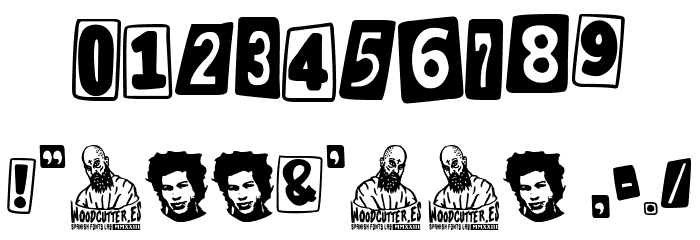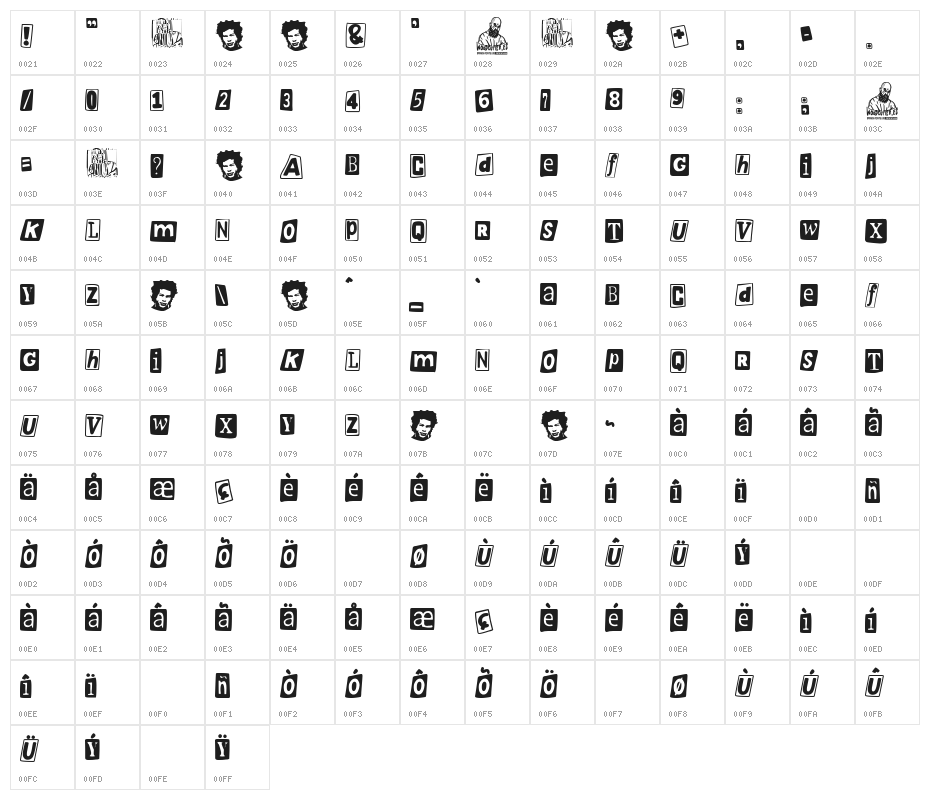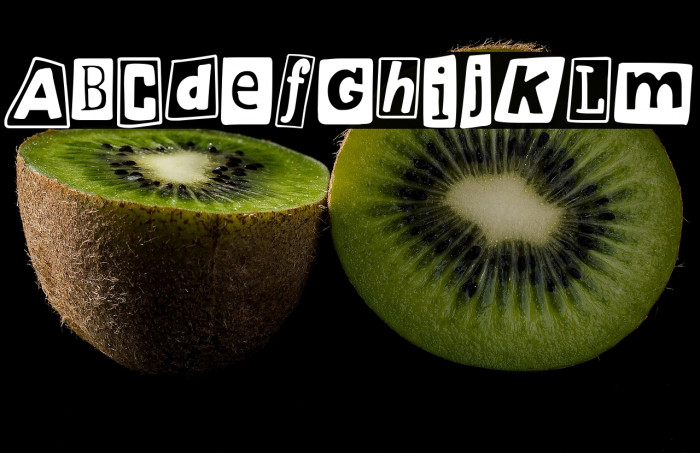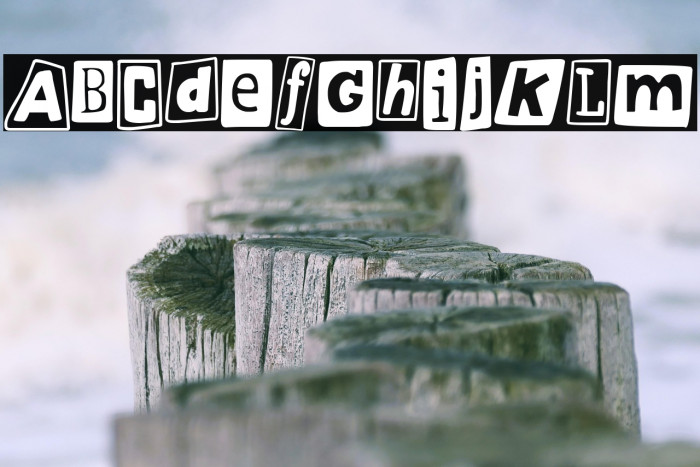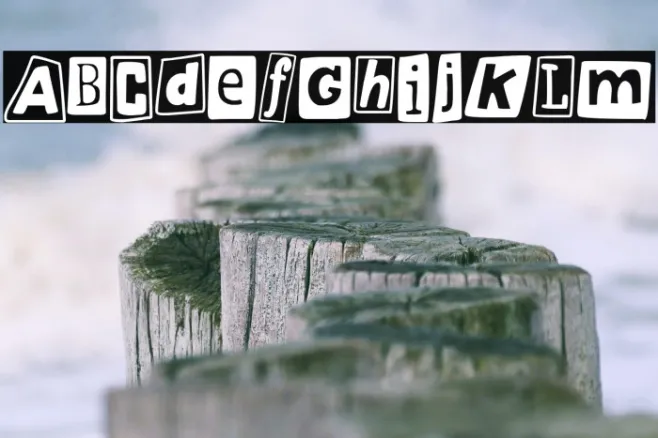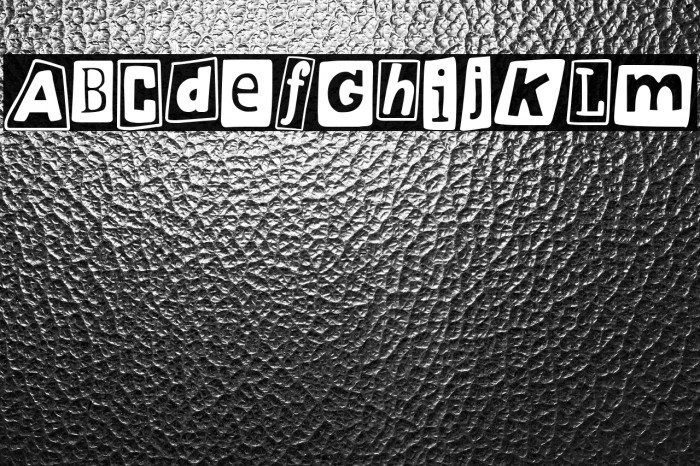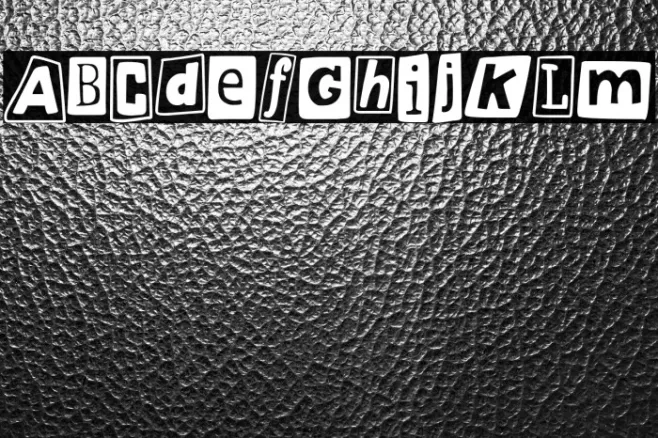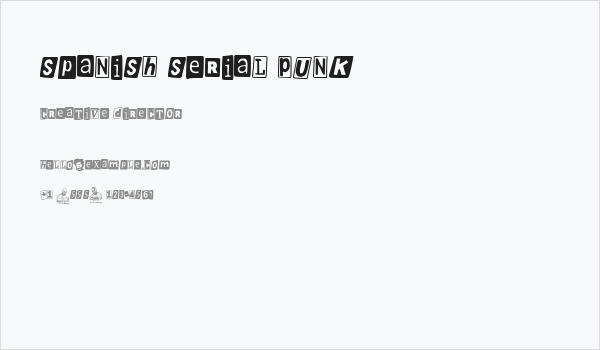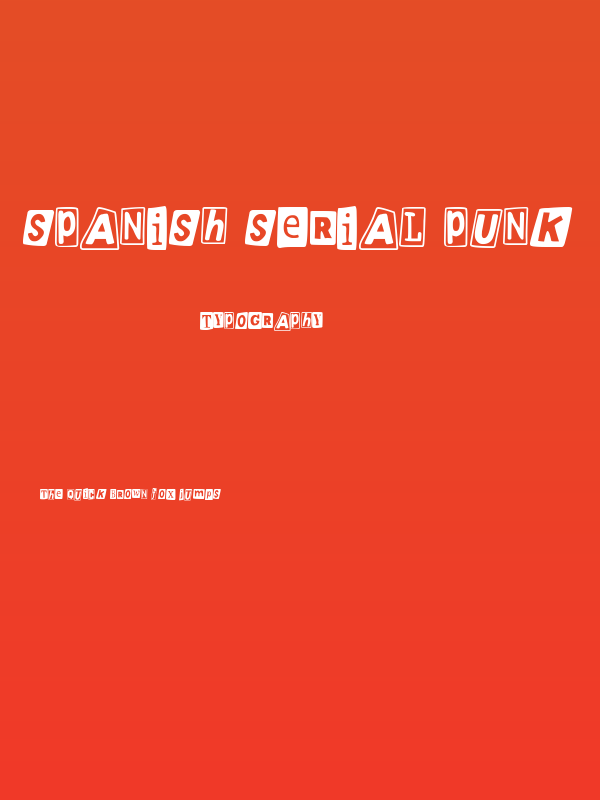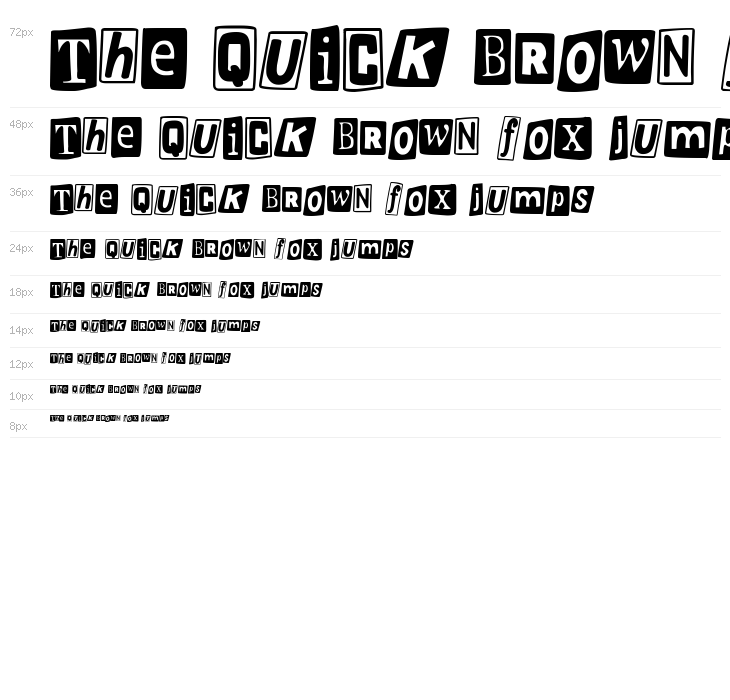
Spanish Serial Punk Font
Spanish Serial Punk Description
This font features a bold, eclectic style with each character enclosed in a square or rectangular block, reminiscent of a ransom note or punk aesthetic. The letters have a mix of uppercase and lowercase forms, each with a unique, hand-drawn appearance. The uneven edges and varying thicknesses of the strokes give it a raw, edgy feel. The numbers and special characters follow the same design principle, adding to the overall chaotic yet artistic vibe. This font is perfect for projects that require a rebellious or unconventional look, capturing attention with its distinct and playful character.
| Overall Style | Punk, Eclectic, Rebellious |
| Use Case | Headlines, Posters, Album covers |
| Proposed Projects | Ideal for album covers, posters, zines, or any project needing a rebellious, edgy aesthetic. |